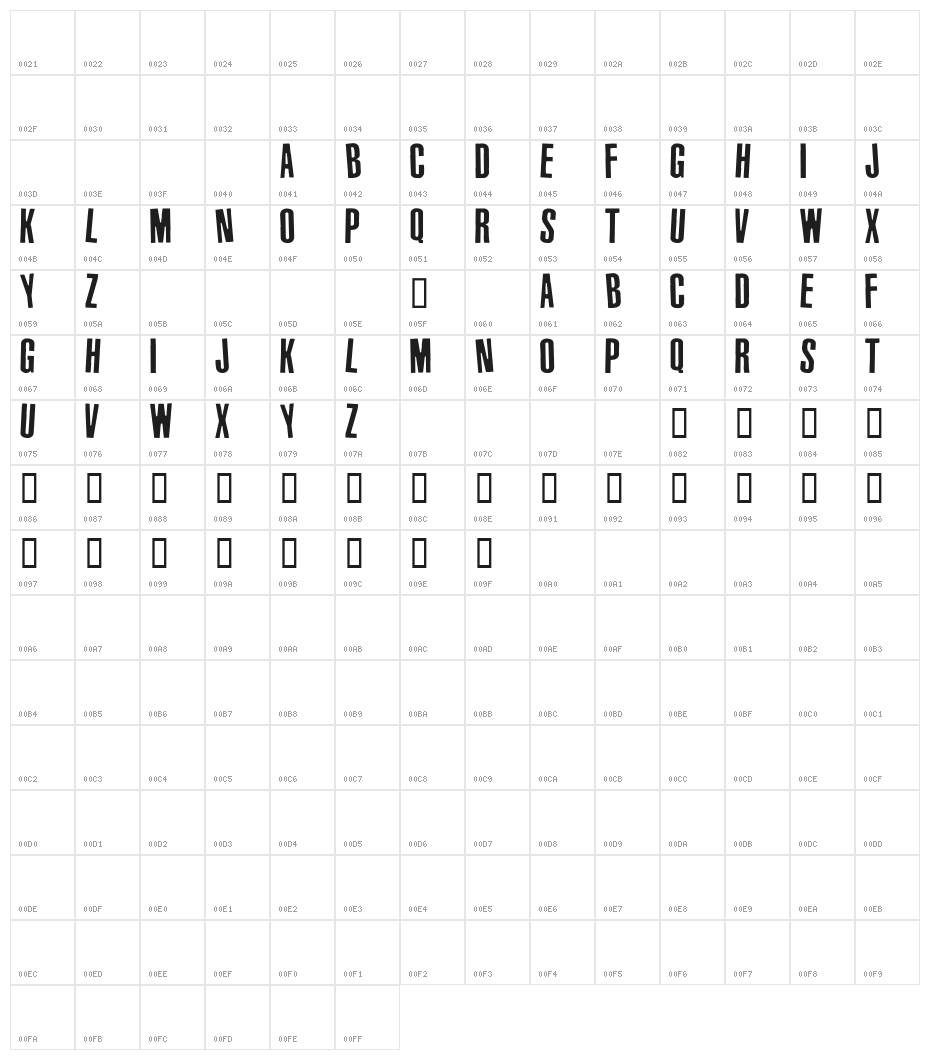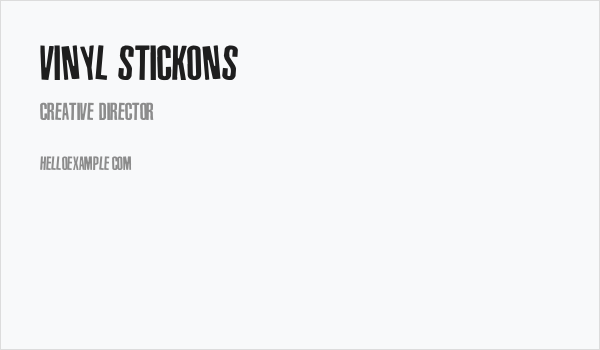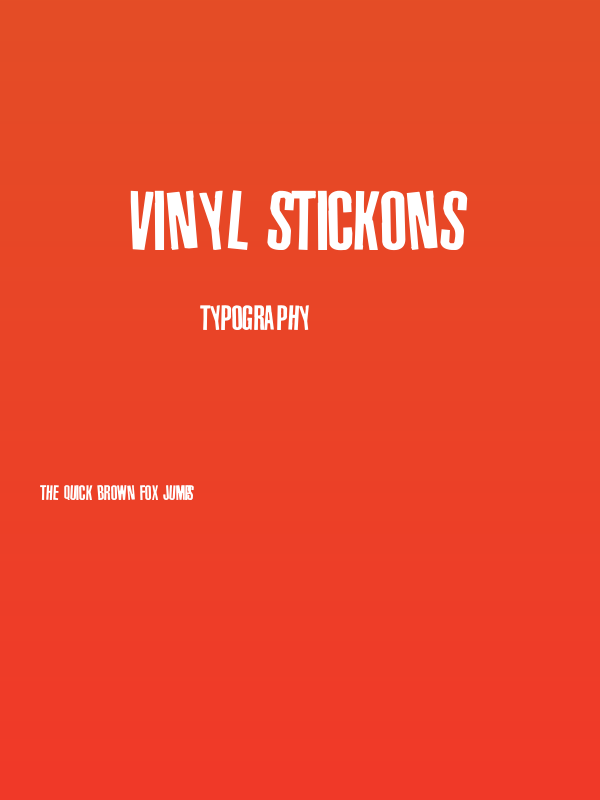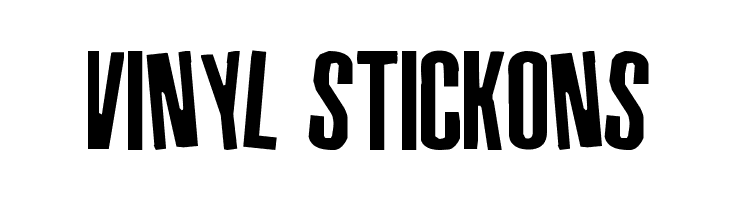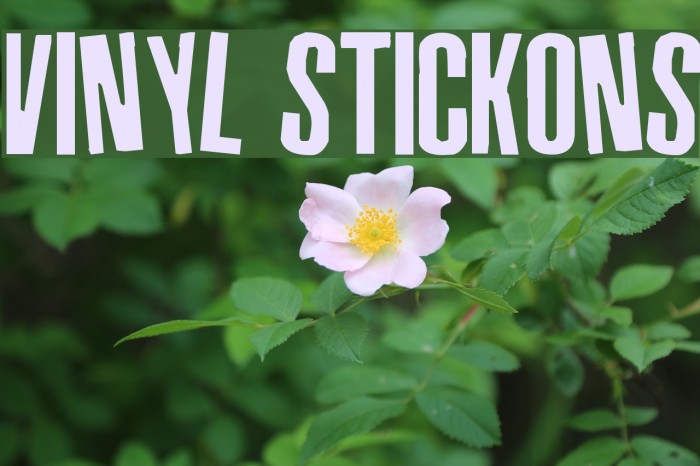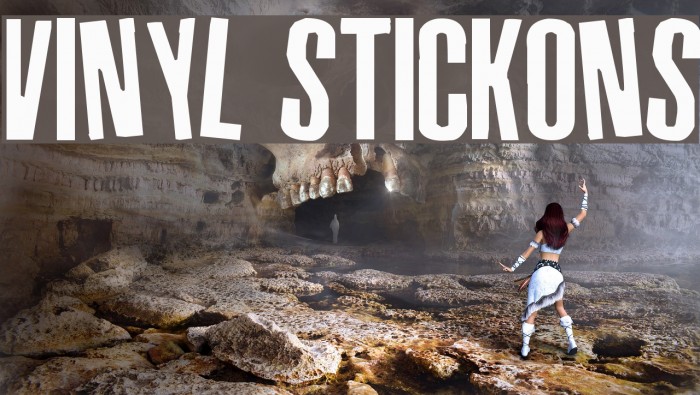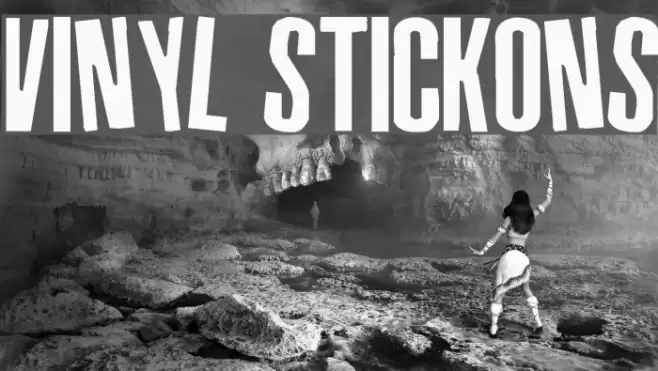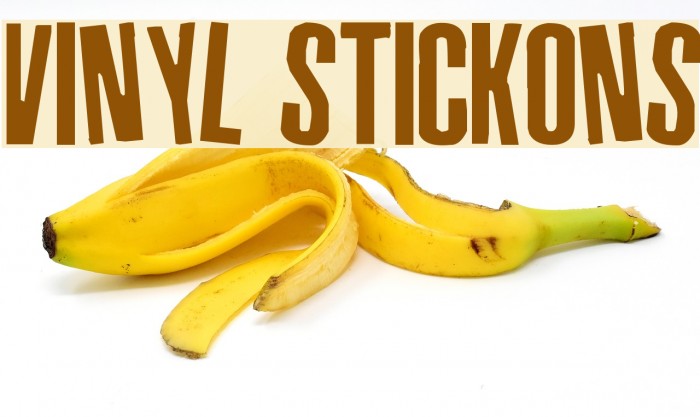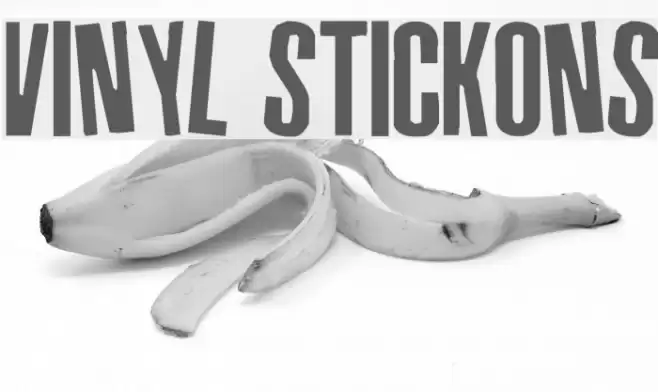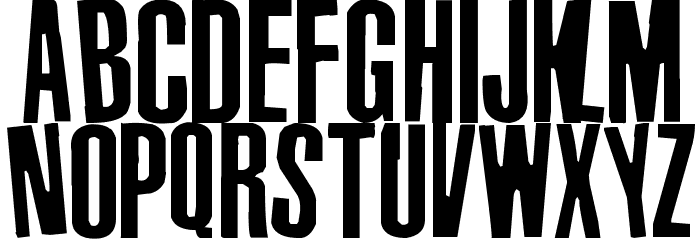
Vinyl Stickons Font
Vinyl Stickons Description
This font features bold, uppercase letters with a distinct, slightly condensed style. The characters are tall and narrow, with a strong presence and high impact. The strokes are thick and consistent, providing a uniform appearance across all letters. The font's design is straightforward and modern, making it suitable for attention-grabbing headlines or signage. Its boldness ensures readability from a distance, while the condensed form allows for efficient use of space.
| Proposed Projects | This font is perfect for posters, banners, and signage where bold, clear communication is essential. It can also be used in branding projects that require a modern and assertive look. |